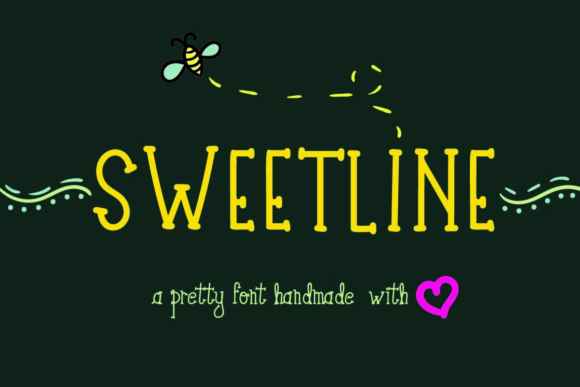
Sweetline Font
Step into the realm of captivating typography with Sweetline Font, a display font family that exudes a playful and artisanal charm. Designed by the creative minds at Lickable Pixels, this font is an ode to individuality and self-expression.
Its meticulously crafted characters dance with a unique flair, featuring distinctive lines at the endings that add a touch of whimsy and personality to your designs. Despite its playful demeanor, Sweetline maintains exceptional readability, making it a versatile choice for a wide range of applications, including cutting projects.
Sweetline Font is the perfect companion for those seeking to add a touch of handmade warmth and creativity to their projects. Its charming imperfections and playful spirit make it an ideal choice for branding, packaging, logos, posters, and any design where you want to infuse a sense of joy and individuality.
Unleash your creativity and let your designs bloom with the vibrant energy of Sweetline Font. Its unique character set, adorned with delightful lines, will transform your words into works of art. Whether you're a seasoned designer or just starting your creative journey, Sweetline Font is the perfect addition to your typographic arsenal.